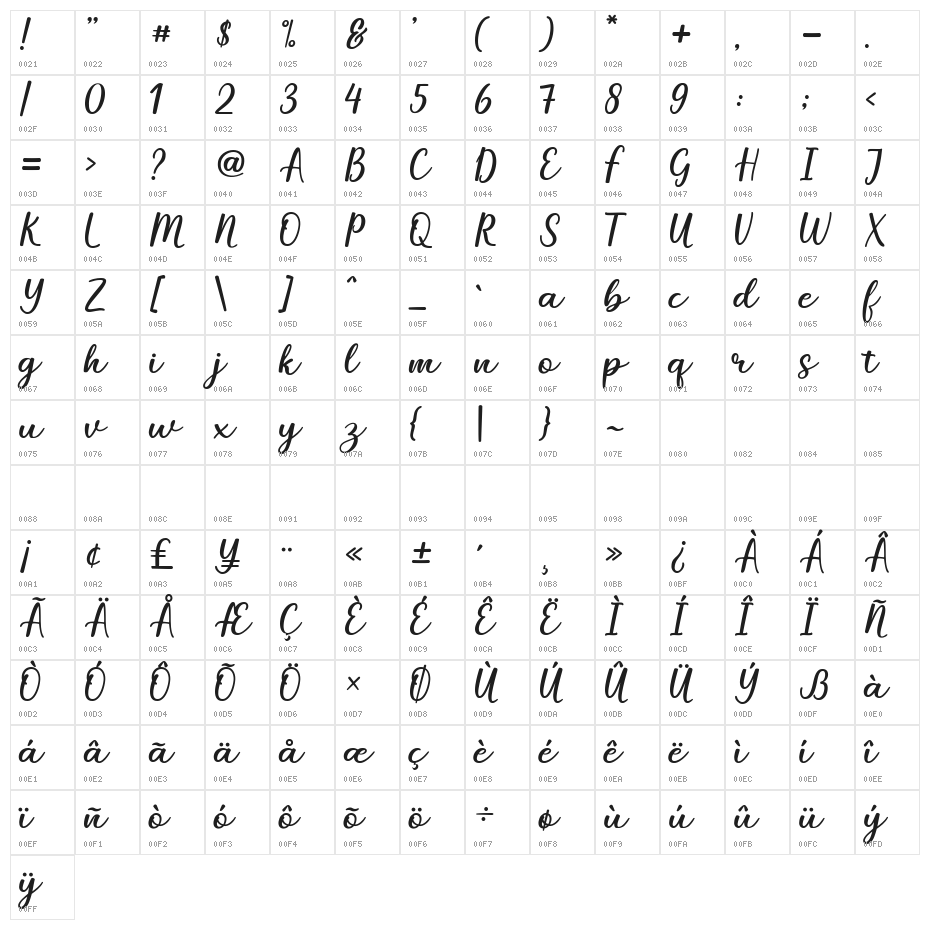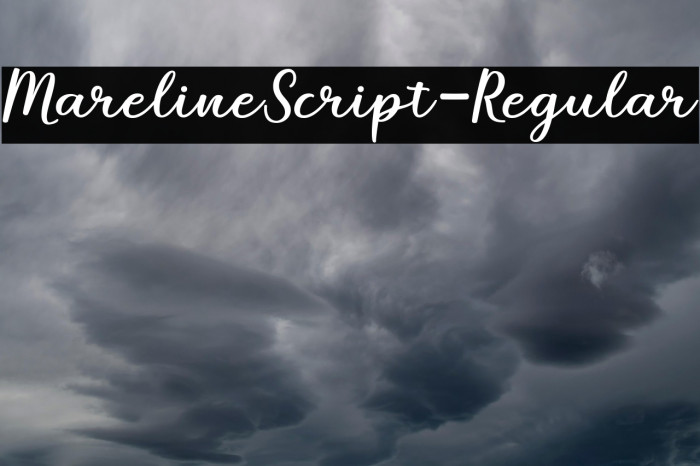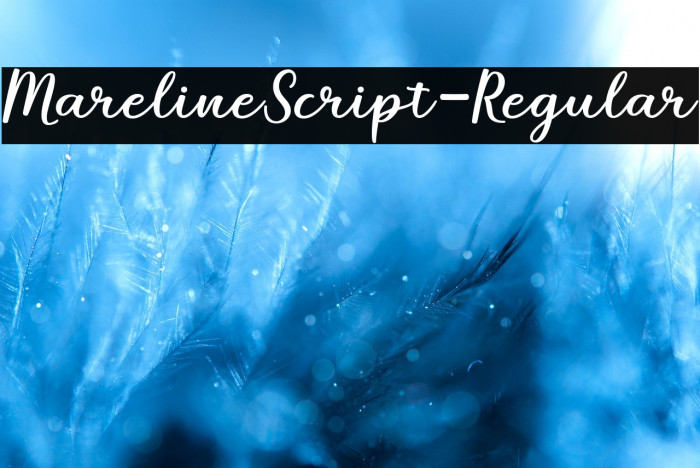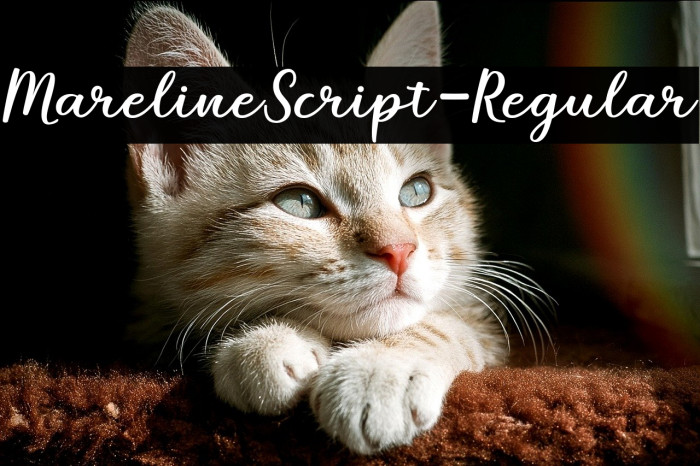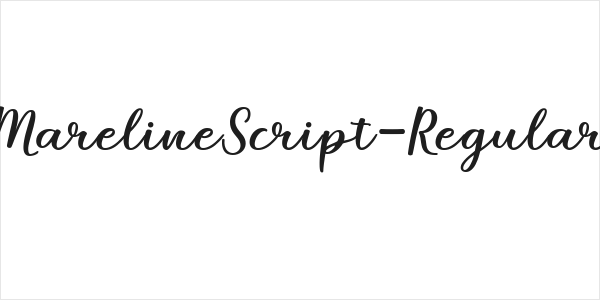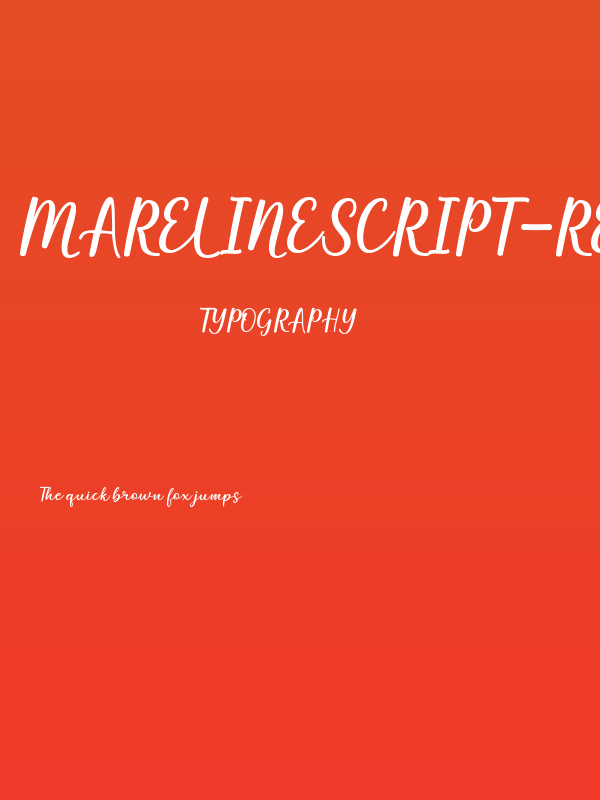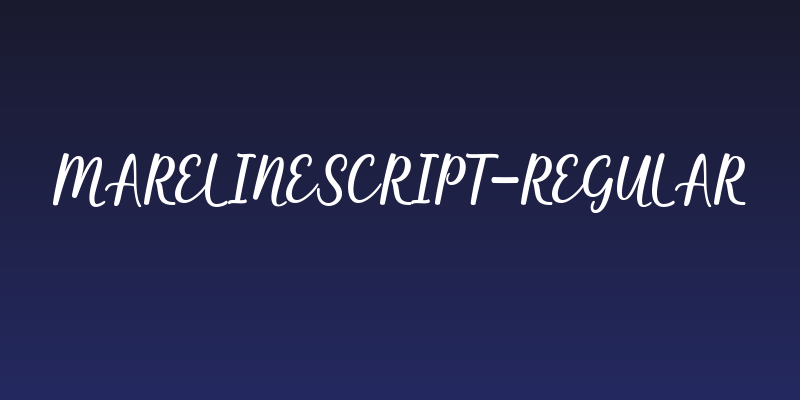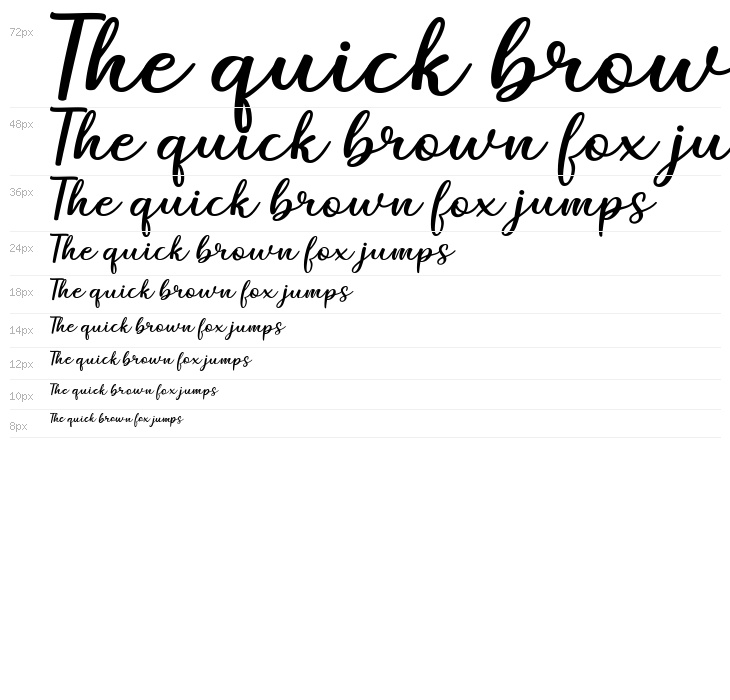
MarelineScript-Regular Font
MarelineScript-Regular Description
This font features a flowing, cursive style that exudes elegance and sophistication. The letters are interconnected, creating a seamless and fluid appearance. The uppercase letters are tall and slightly narrow, with graceful curves and loops that add a touch of flair. The lowercase letters maintain a consistent flow, with rounded forms and smooth transitions between strokes. The numerals are designed to complement the script style, with a slight slant and rounded edges. Special characters are integrated seamlessly, maintaining the overall aesthetic. This font is perfect for projects that require a personal, handwritten touch.
Overall StyleElegant, Handwritten
Use CaseLogos, Invitations, Greeting Cards
Proposed ProjectsIdeal for wedding invitations, greeting cards, branding, and logo design.